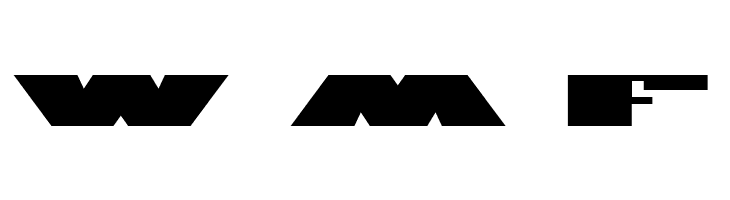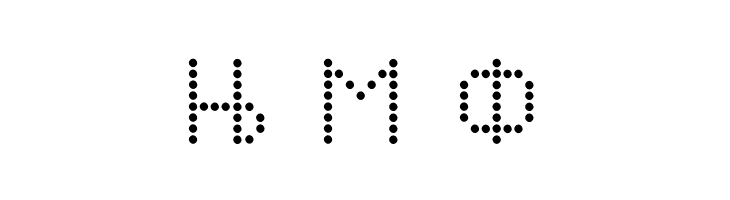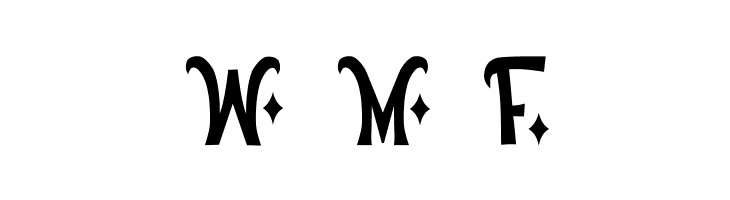
A bold, medieval-inspired font with sharp serifs and dramatic curves.
A bold, angular font with sharp, jagged elements for a dynamic look.
( Fonts by Dieter Schumacher )
A bold, gothic-inspired font with sharp, angular edges and intricate details.
A bold, angular, and condensed font with a modern, geometric style.
A bold, decorative font with angular lines and intricate swirls.
A bold and ornate Blackletter font with intricate details and strong vertical lines.
( Fonts by www.re-type.com - Ramiro Espinoza )
A bold, condensed font with a modern and sleek appearance.
A bold, geometric display font with high contrast and decorative serifs.
A bold, geometric sans-serif font with a modern and clean design.
( Fonts by Matthew Welch - www.squaregear.net/fonts/ )
A bold, high-contrast serif font with a modern and dramatic style.
( Fonts by Rick Mueller )
A bold, dynamic script font with high contrast and decorative flourishes.
( Fonts by Spork Thug Typography - Josh Wilhelm - www.lifewithouttaffy.com/taffy/blog )
A bold, fragmented font with a shattered, edgy appearance.
( Fonts by Phillip Cavette )
A playful and quirky font with tall, narrow letterforms and uneven strokes.
( Fonts by Buddha Graphix - buddha.graphix.dk/fonts.html )
A bold, decorative font with whimsical swirls and dots, ideal for creative projects.
( Fonts by uatype.faithweb.com - UnAuthorized Type )
A bold, dynamic font with sharp, angular edges and a hand-drawn appearance.
A bold serif font with angular serifs and a commanding presence.
A bold, geometric stencil-like font with strong, angular lines.
( Fonts by The Font Emporium )
A bold, playful font with a 3D shadow effect, perfect for fun and engaging designs.